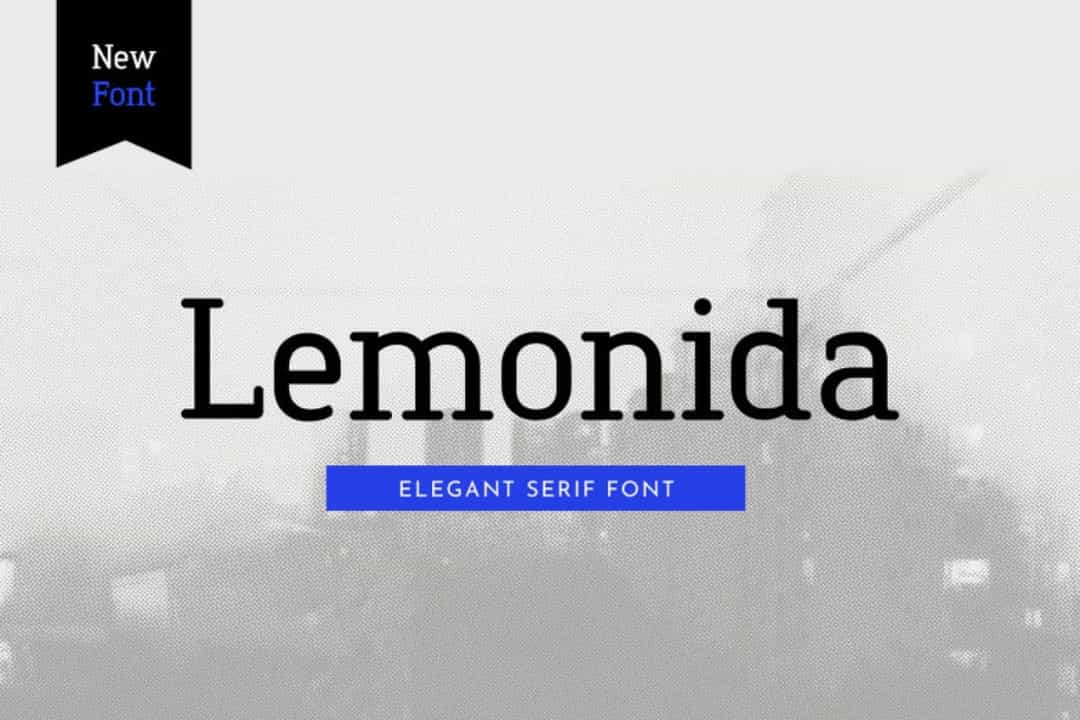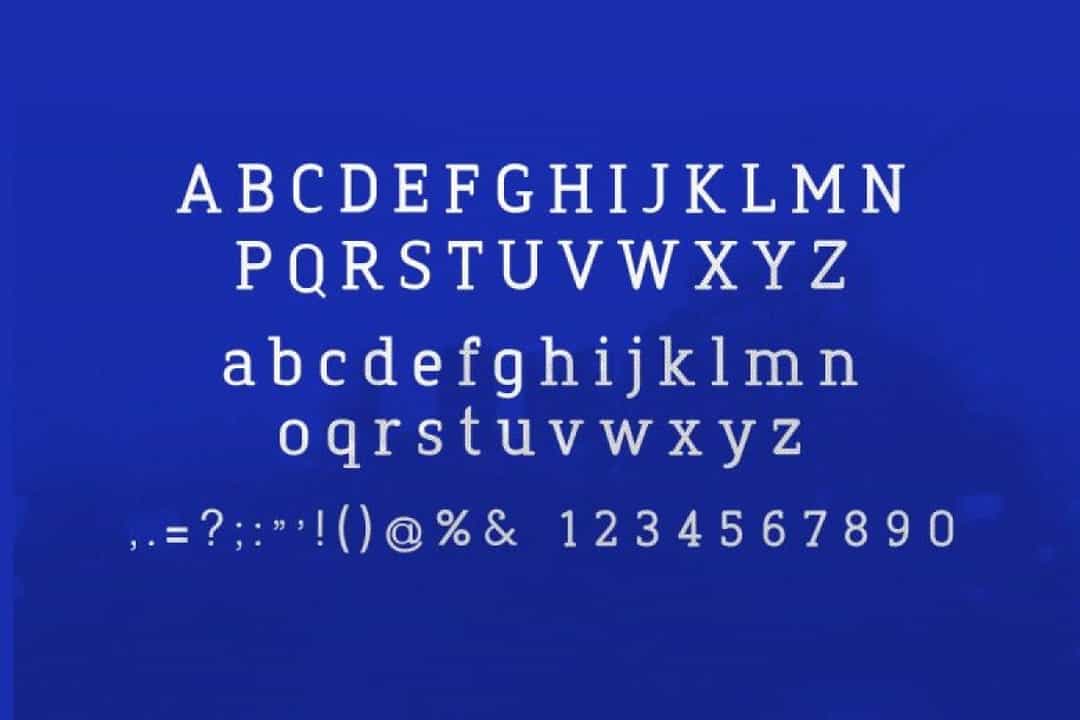
Lemonida can be described as a modern serif font that blends traditional style fonts with minimalist styles for elegant results, complete with ligatures and other font alternatives to support this font’s characters.